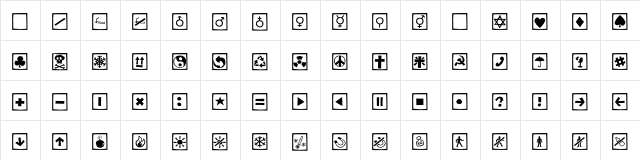
AleSignsCageLL Regular
Design Context for AleSignsCageLL Typeface
AleSignsCageLL is a composed and adaptable typeface that performs quietly and consistently across a wide range of design contexts.